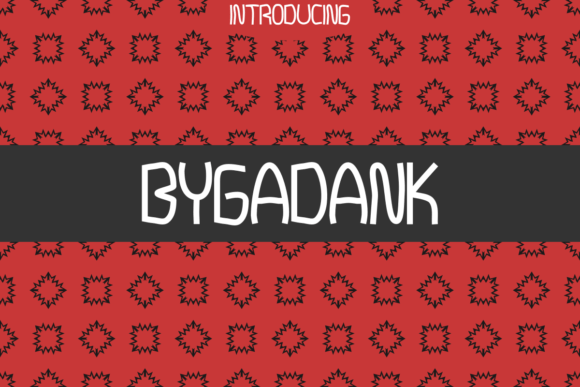
In a world saturated with digital noise, where words dance across screens in an endless stream, it's rare to encounter a font that truly stands out. A font that captivates the reader, drawing them into the narrative, and leaving a lasting impression. Bygadank Font is not just another font; it's a masterpiece crafted for the digital age.
As a display font, Bygadank shines brightest when given ample space to breathe. Its light and easy-to-read characters dance gracefully across the page, inviting the reader to delve deeper into the text. Whether you're creating a print brochure, designing a website, or crafting a captivating social media post, Bygadank Font is the perfect choice for making your words come alive.
Unlike other fonts that strive for versatility, Bygadank Font embraces its unique identity. It's not a font that tries to be everything to everyone; it's a font that revels in its own distinct personality. With its clean lines and elegant curves, Bygadank Font exudes a sense of sophistication and charm that will elevate any project you undertake.
"Bygadank Font is a game-changer for my design work. Its light and airy characters make it perfect for creating eye-catching headlines and body text that's easy on the eyes." - Sarah J., Graphic Designer
"I love using Bygadank Font for my website. It gives my content a touch of elegance and professionalism that makes it stand out from the competition." - John D., Web Developer
"Bygadank Font is the perfect font for my social media posts. Its unique style helps my content get noticed and shared more often." - Maria K., Social Media Manager
So, if you're looking for a font that will make your words shine, look no further than Bygadank Font. Its light and easy-to-read characters, combined with its unique and captivating style, will make your projects stand out from the crowd.